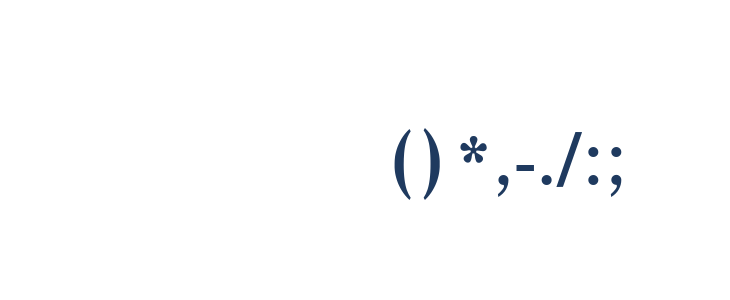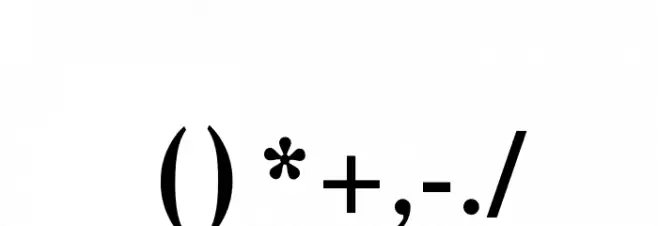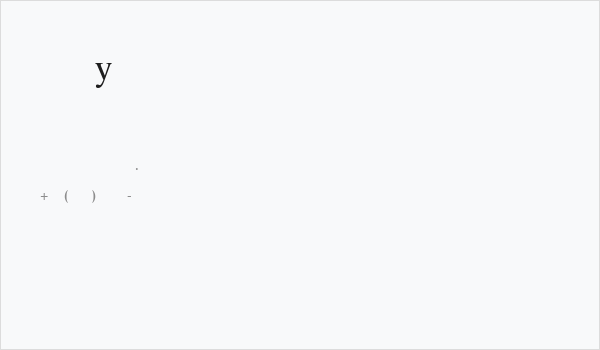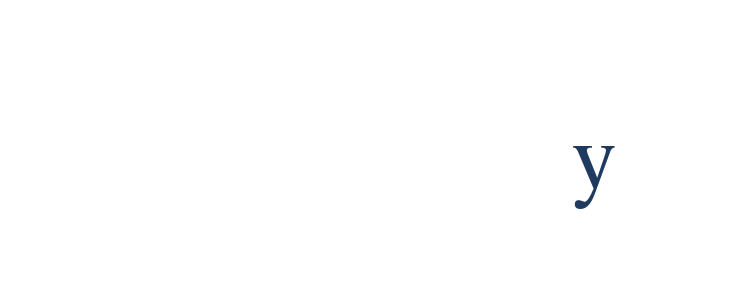
Dilyana Font
Dilyana Description
This font features a classic serif style with elegant curves and a refined appearance. The serifs are pronounced, giving it a traditional and sophisticated look. The lowercase 'y' has a distinctive tail that adds a touch of uniqueness. The special characters, such as parentheses and asterisks, are well-defined and maintain the font's overall aesthetic. The font is suitable for formal documents and projects that require a touch of elegance and readability.
Overall StyleClassic
Use CaseHeadlines, Body text, Logos
Proposed ProjectsIdeal for formal documents, invitations, book titles, and branding materials that require a sophisticated touch.